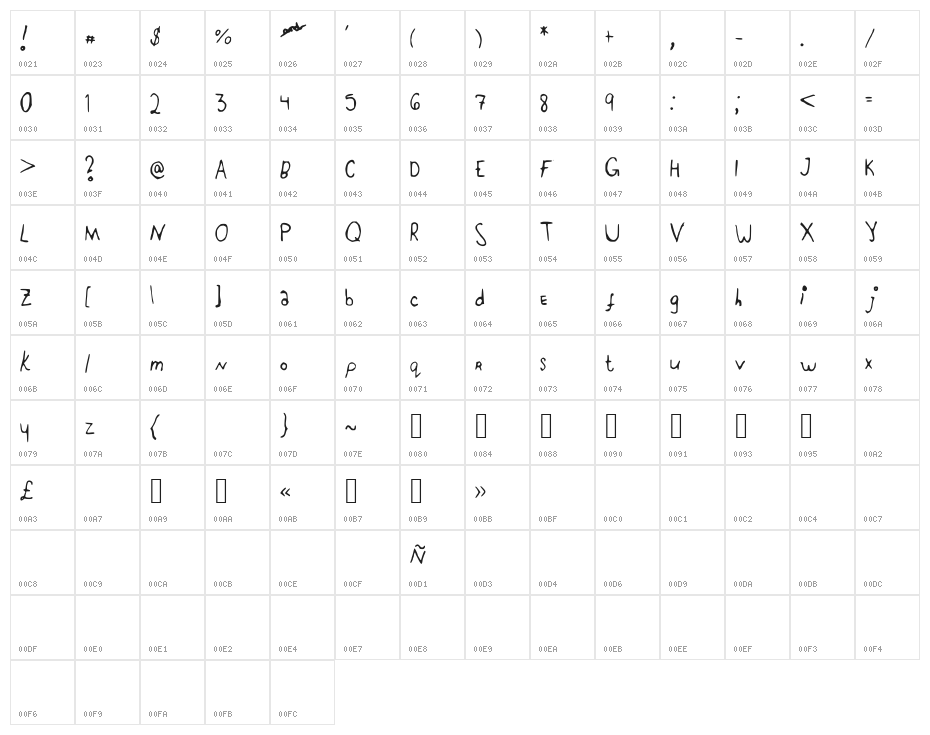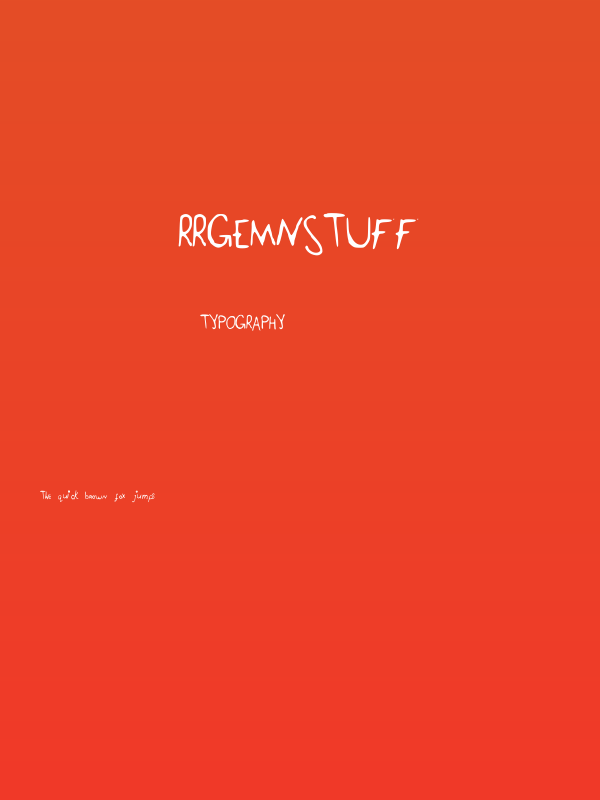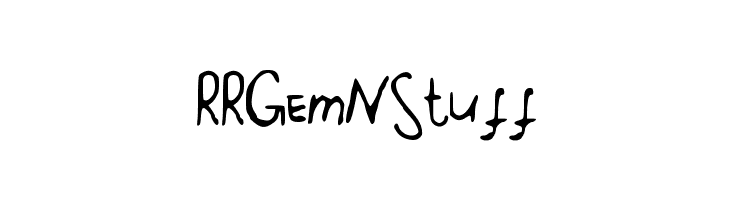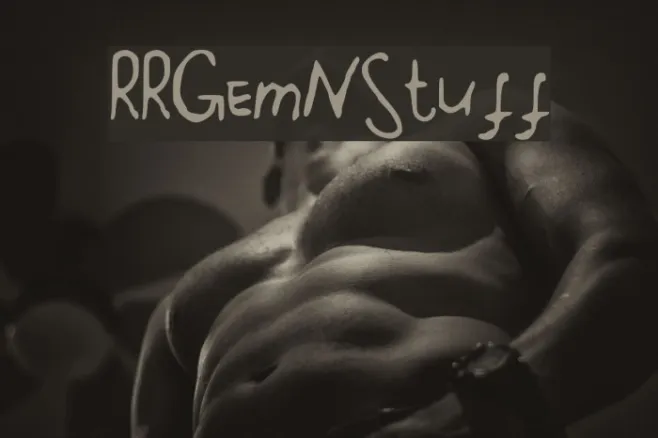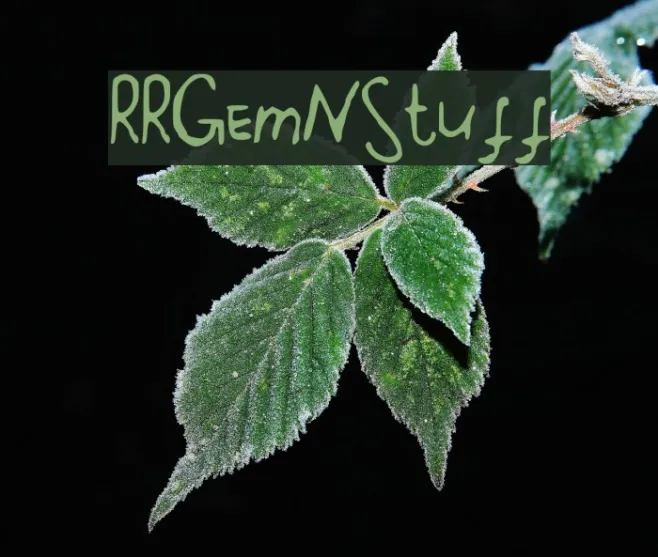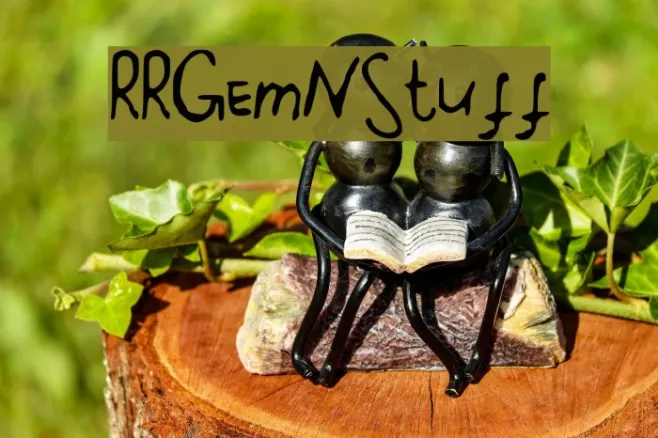
RRGemNStuff Font
RRGemNStuff Description
This font features a playful and informal handwritten style, characterized by its irregular and slightly whimsical letterforms. The strokes vary in thickness, giving it a dynamic and lively appearance. The uppercase letters are bold and prominent, while the lowercase letters maintain a consistent flow with a casual touch. Numbers and special characters are crafted with the same playful essence, making them stand out. The overall design is reminiscent of a personal note or a casual doodle, adding a human touch to any text.